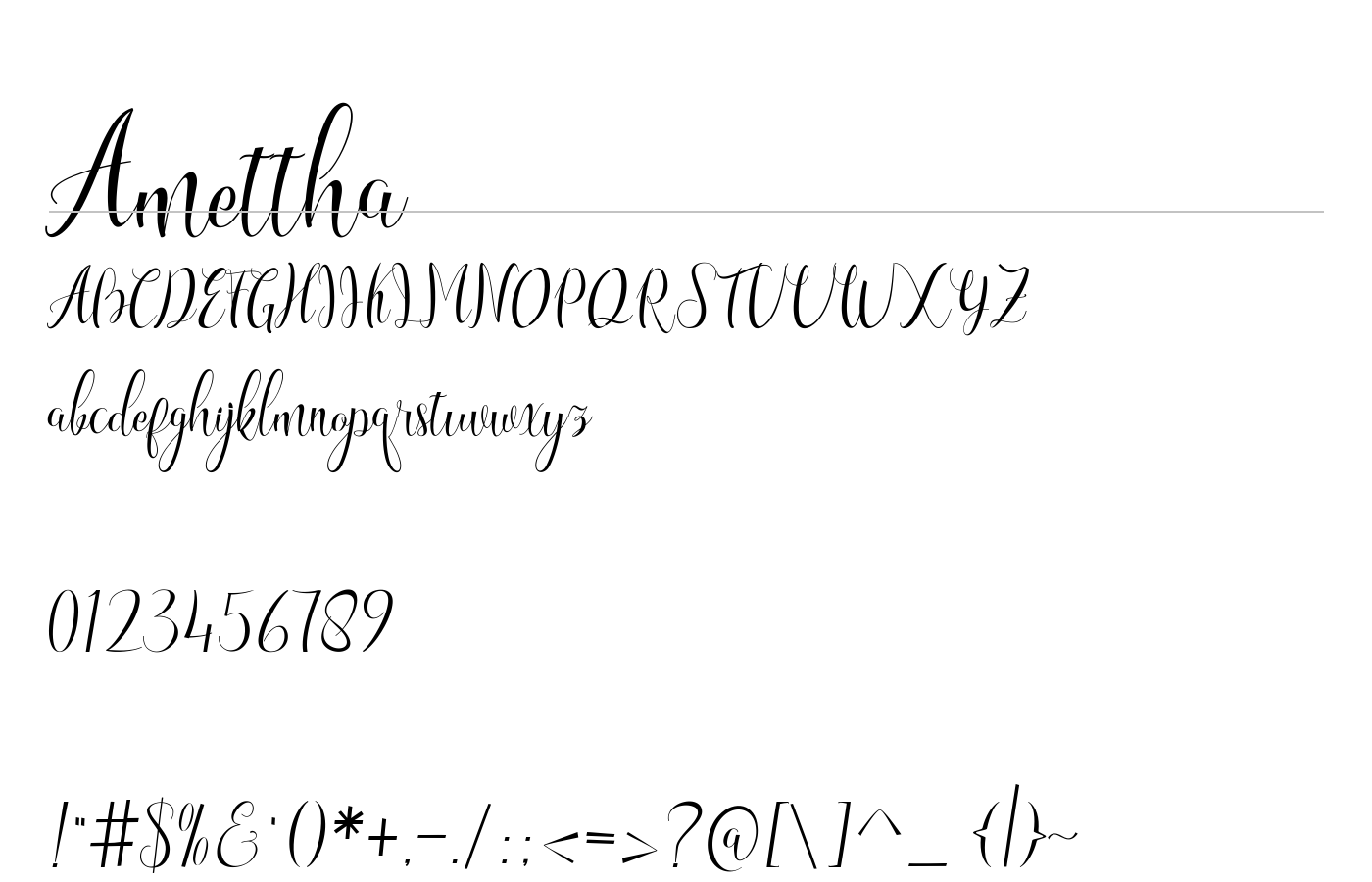
Amettha is an elegant, thin script font featuring flowing, calligraphic letterforms with high contrast and graceful curves. Its delicate strokes and sophisticated style make it perfect for luxury branding, wedding invitations, and refined editorial use where a touch of classic beauty and femininity is desired. This font works best in headlines or decorative text that calls for a stylish, upscale feel.
Amettha Font
About Amettha Font